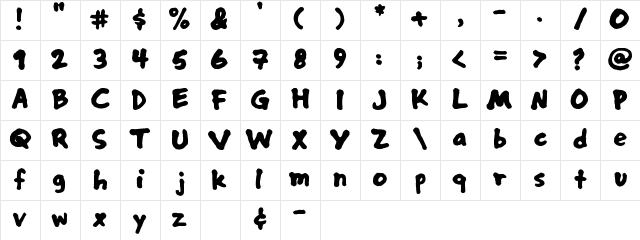
Complete nusaliver Regular glyph index. Displaying only characters natively supported by nusaliver Regular font.
nusaliver is a composed and adaptable typeface that performs quietly and consistently across a wide range of design contexts.